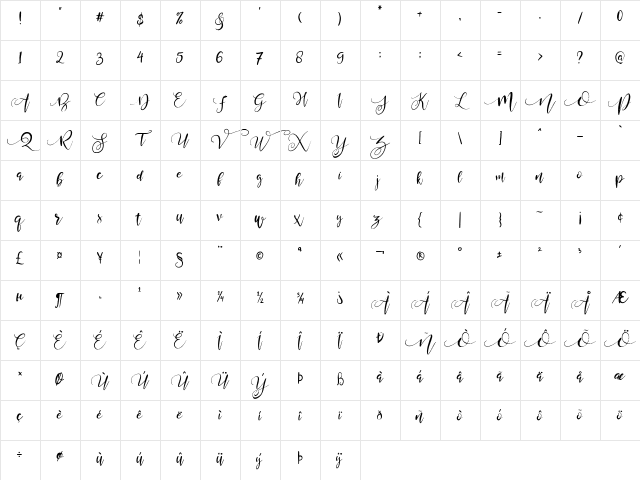
Valledofas just personal only Regular
Foundry: Alit Suarnegara
Designer: Alit Suarnegara
Design Context for Valledofas just personal only
Valledofas just personal only is a composed and adaptable typeface that performs quietly and consistently across a wide range of design contexts.